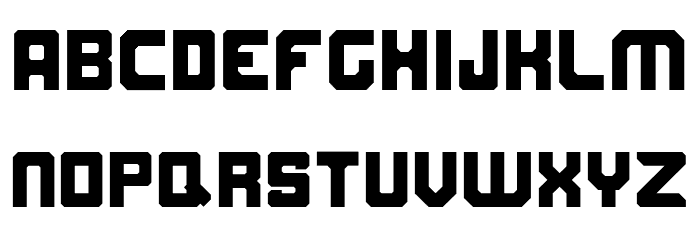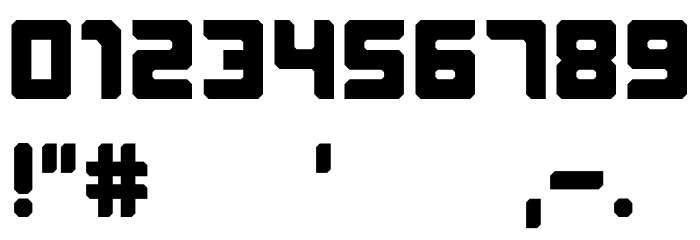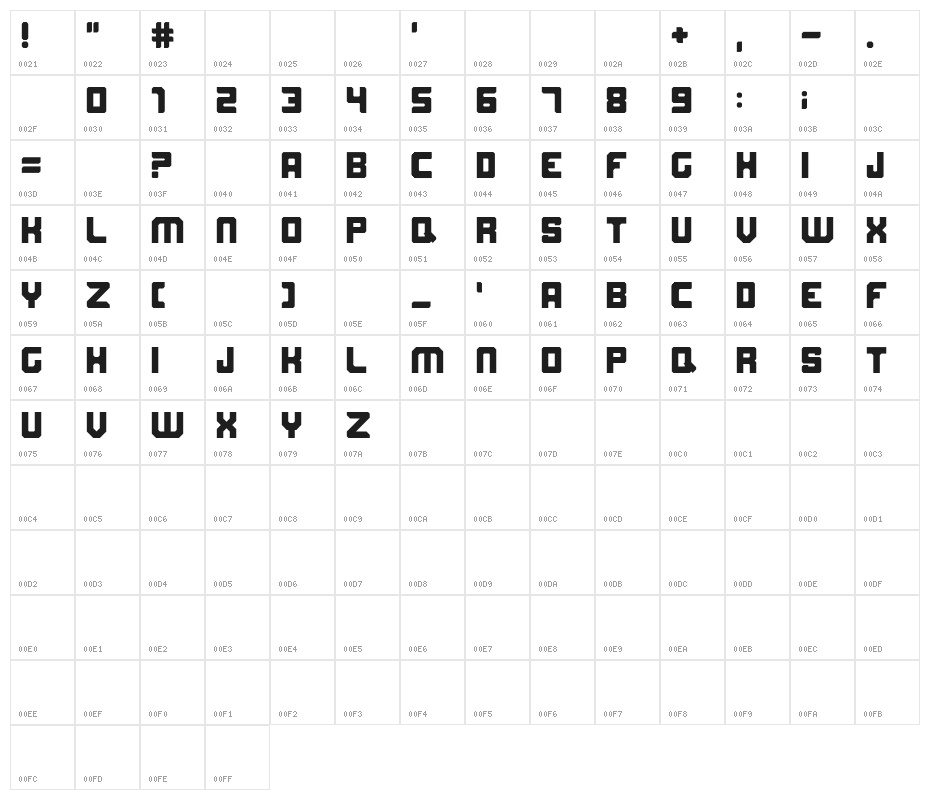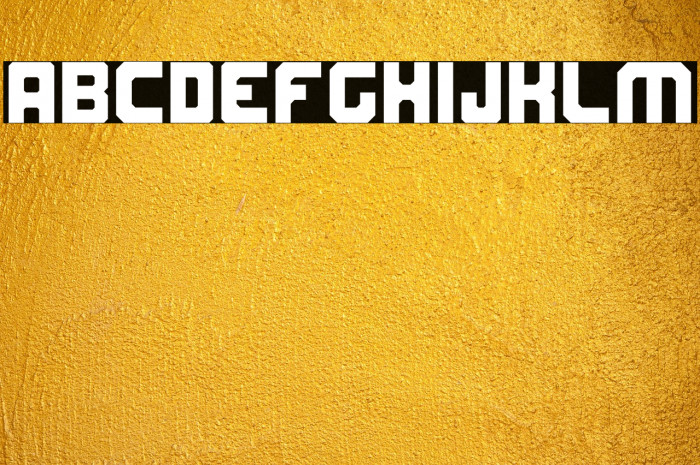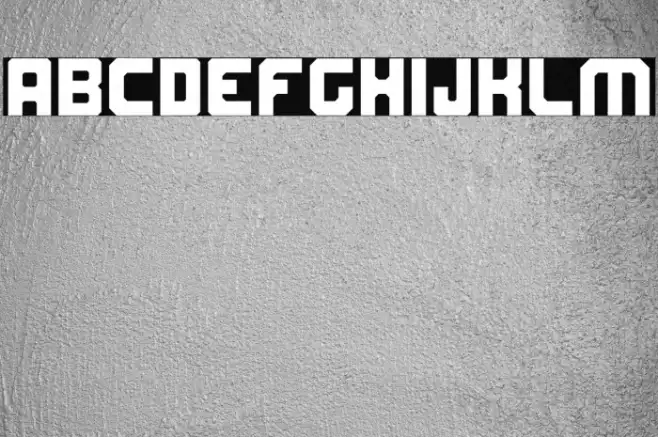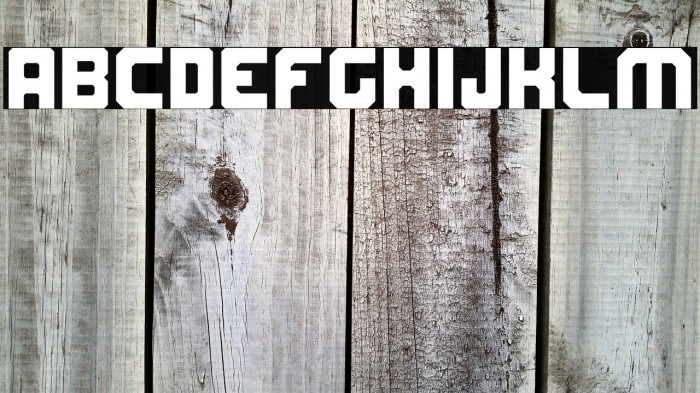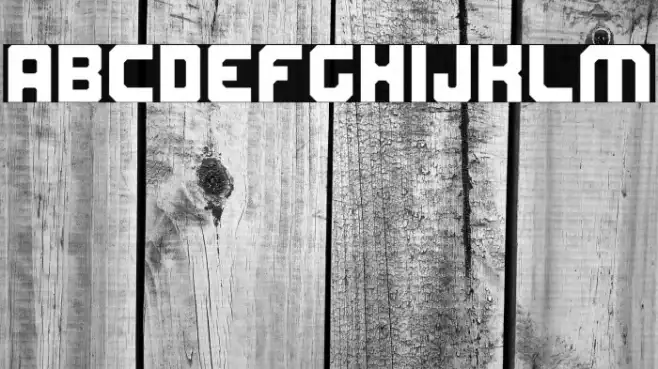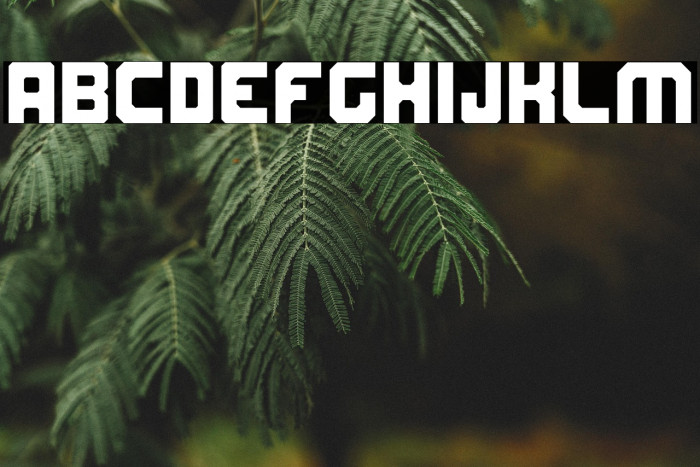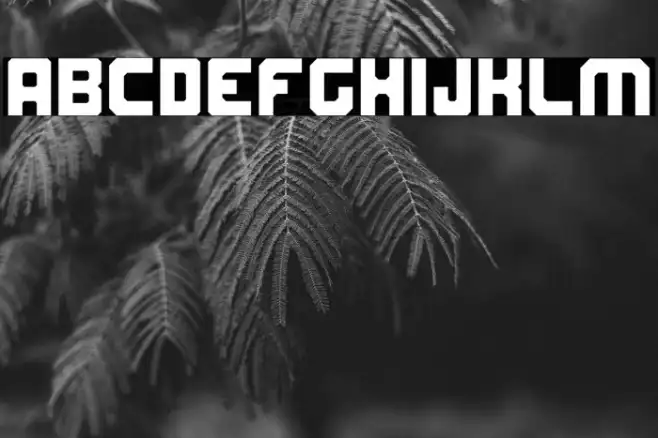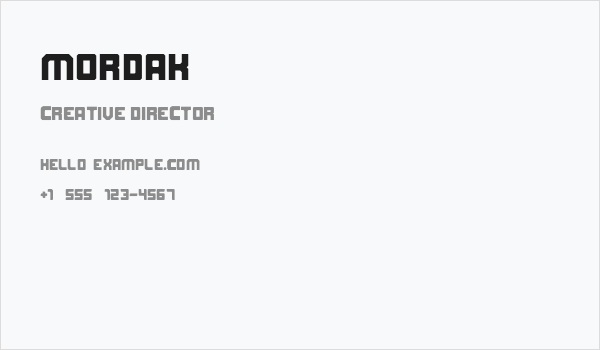
Mordak Font
This font features a bold, geometric design with strong, angular lines and a modern aesthetic. The characters are uniformly thick, giving it a robust and impactful appearance. The uppercase letters are particularly striking, with a blocky, futuristic style that commands attention. The numbers and special characters maintain the same boldness, ensuring consistency across all elements. This font is ideal for projects that require a strong visual presence, such as branding, posters, or digital interfaces.
A bold, geometric font with a modern, angular design.
- Font: Mordak
- Proposed Projects: Ideal for branding, posters, digital interfaces, and any project needing a strong visual impact.